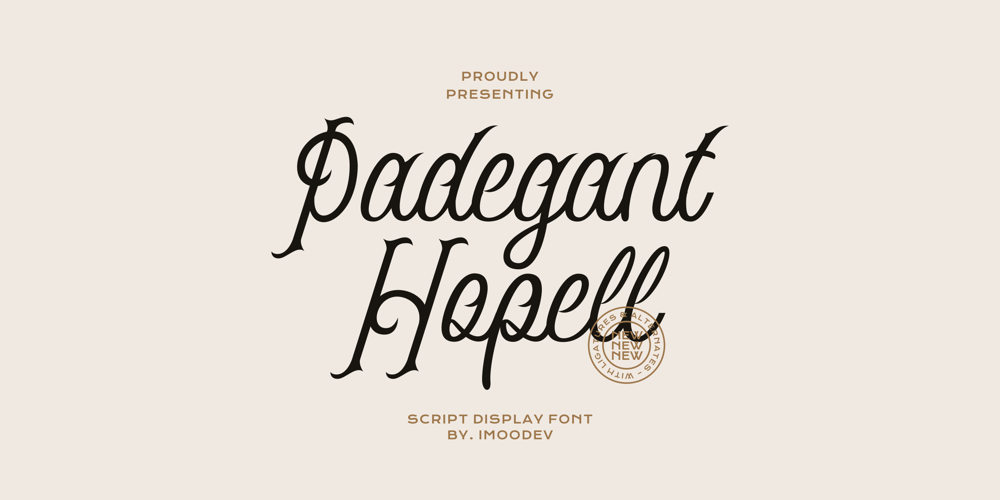
Padegant Hopell Font Family was designed by Aulia Savira Putri and published by Imoodev. Padegant Hopell contains 1 styles and family package options. Padegant Hopell is a script display font that has smooth curves and a visual style a can embodies charm and elegance in every lettering, making your work look stunning and attractive.